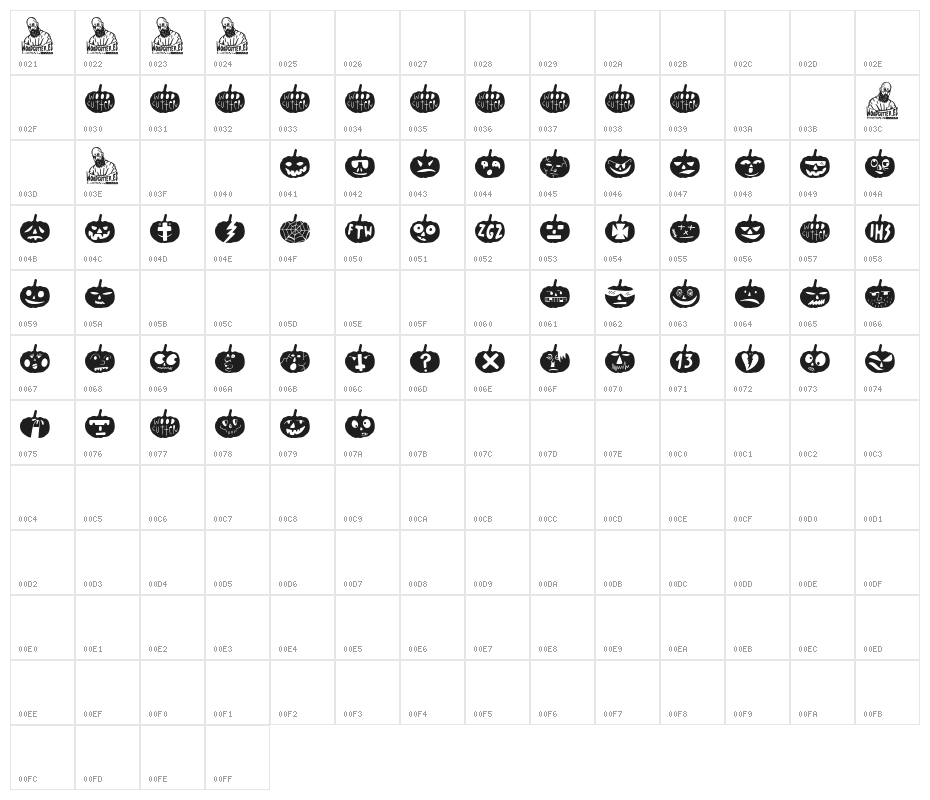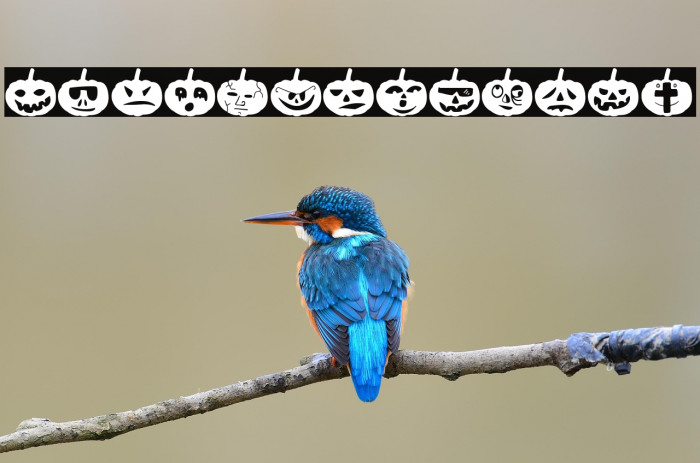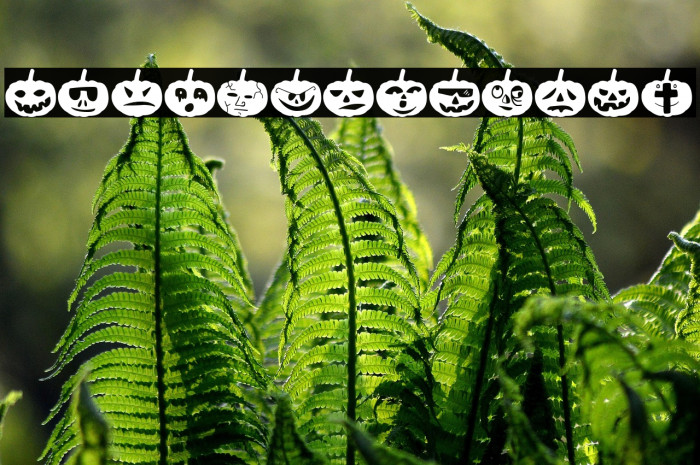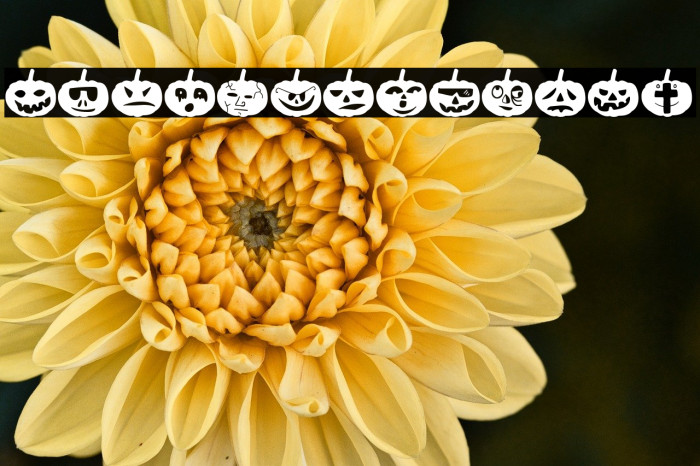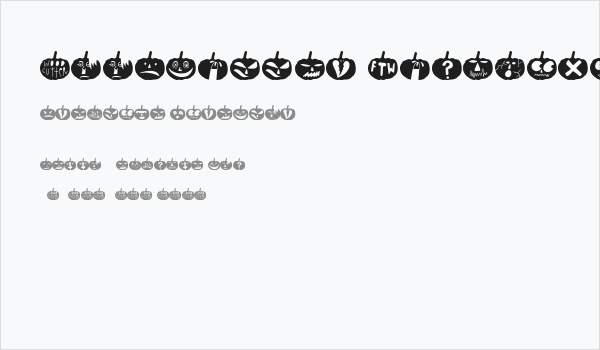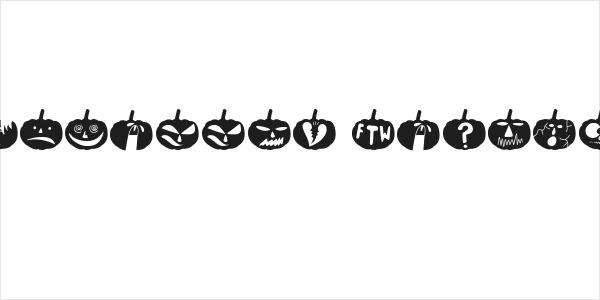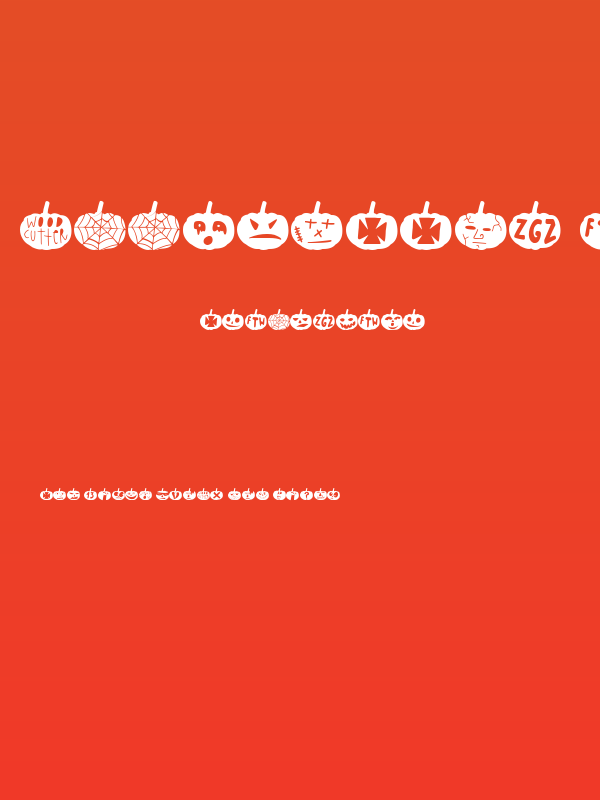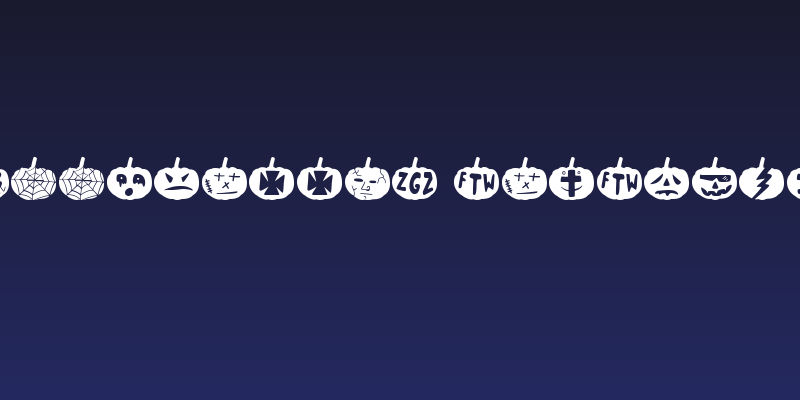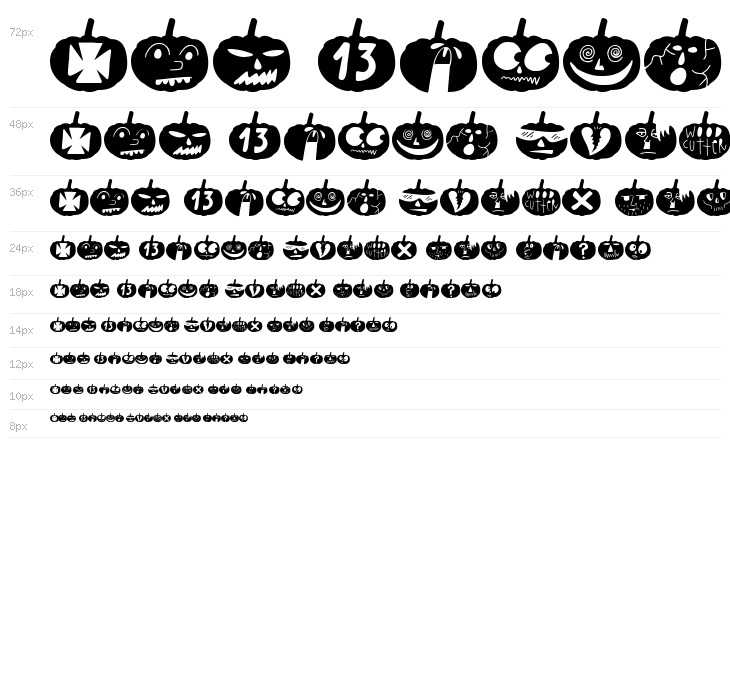
Woodcutter Pumpkins Font
Woodcutter Pumpkins Description
This font features a playful and spooky design, with each character embedded within a pumpkin shape. The characters are creatively carved into the pumpkins, giving a Halloween-themed appearance. The style is bold and decorative, with each letter and symbol uniquely designed to resemble a carved pumpkin face or pattern. This font is perfect for seasonal designs, especially those related to Halloween, as it captures the essence of fun and fright. The characters are evenly spaced within their pumpkin outlines, maintaining a consistent and cohesive look across the set.
| Proposed Projects | Ideal for Halloween invitations, themed posters, party decorations, and festive banners. |